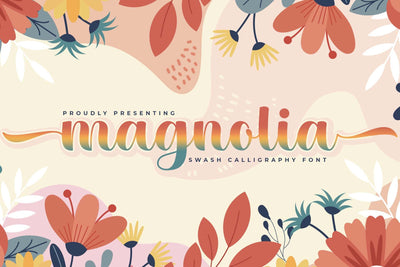
Magnolia
Magnolia is a stylish and incredibly elegant handwritten font. It looks stunning on wedding invitations, thank you cards, quotes, greeting cards, logos, business cards and every other design which needs a handwritten touch.